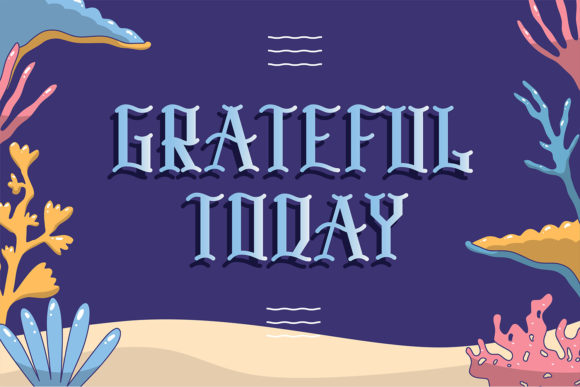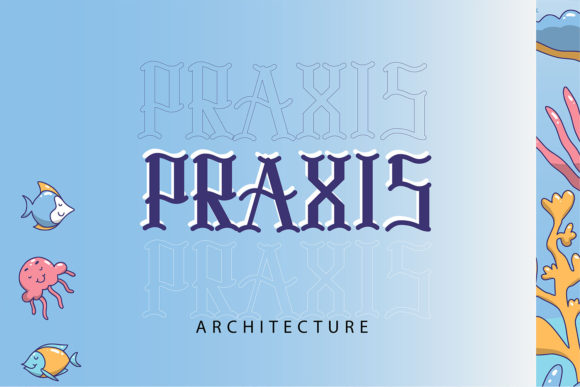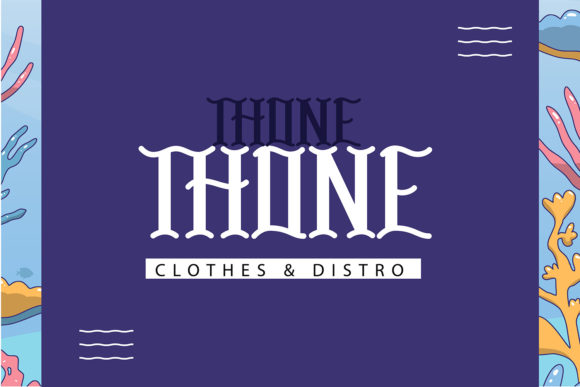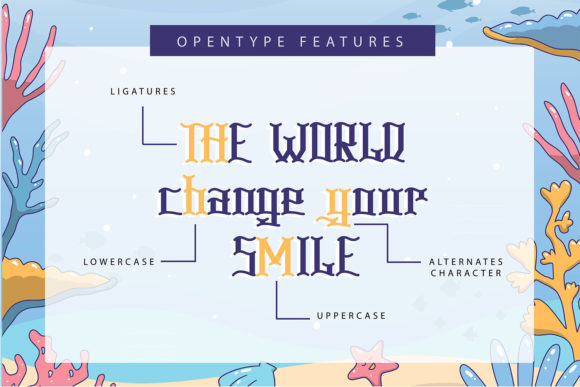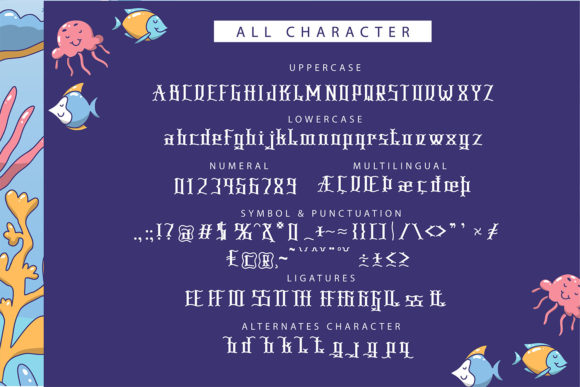
Introduction to Season of the Sea Font
Season of the Sea is a chic and quirky display font.
Key Features of Season of the Sea Font
Why Choose Season of the Sea Font?